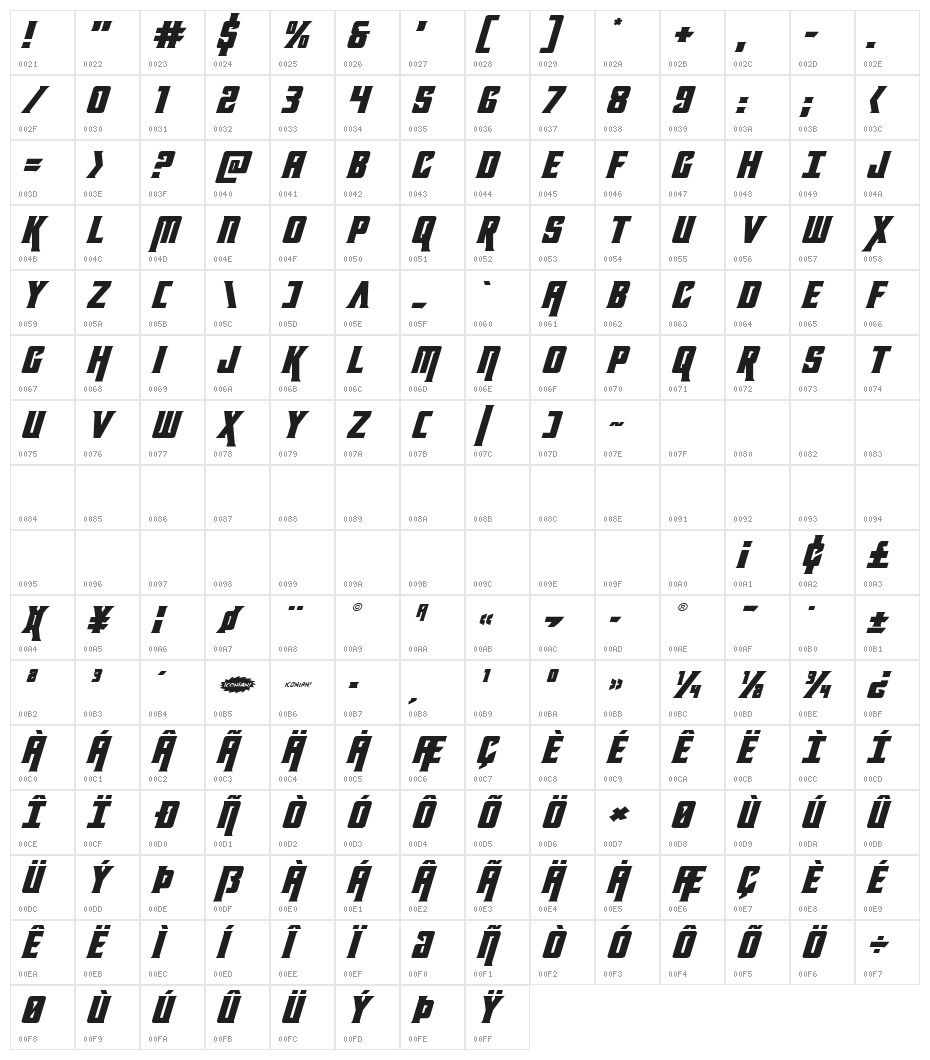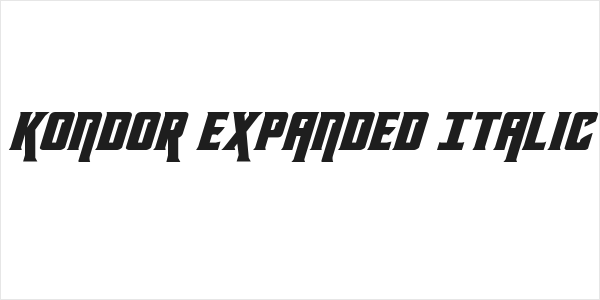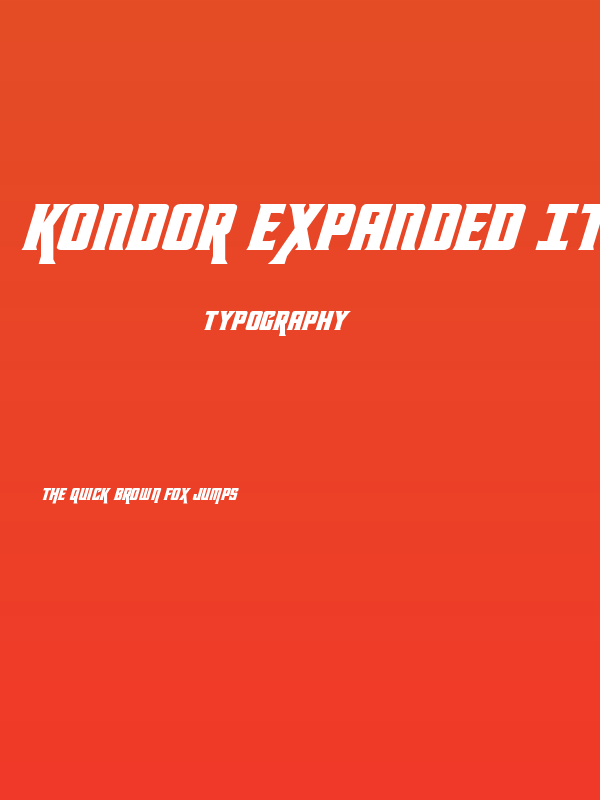
Kondor Expanded Italic Font
Kondor Expanded Italic Description
This font features a bold and dynamic design with an italicized slant, giving it a sense of motion and energy. The characters are expanded, providing a wide stance that enhances readability while maintaining a strong visual impact. The angular and sharp edges of the letters contribute to a modern and edgy aesthetic, making it suitable for attention-grabbing headlines and titles. The uniform stroke width across the characters ensures consistency, while the expanded width adds a unique flair. This font's distinctive style is perfect for projects that require a bold statement.
| Proposed Projects | Ideal for sports branding, dynamic posters, video game titles, and action-themed designs. |